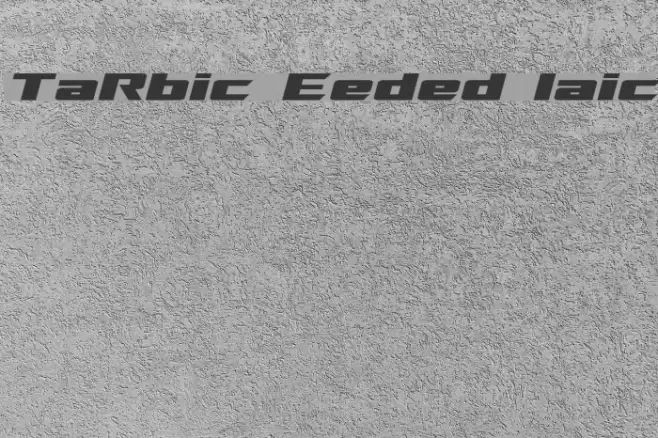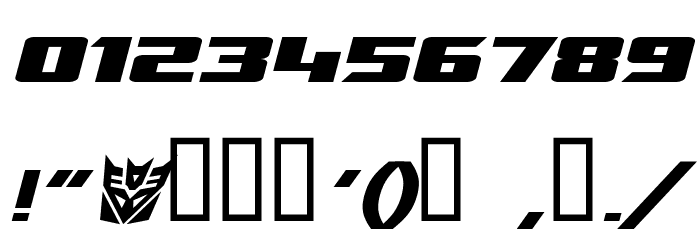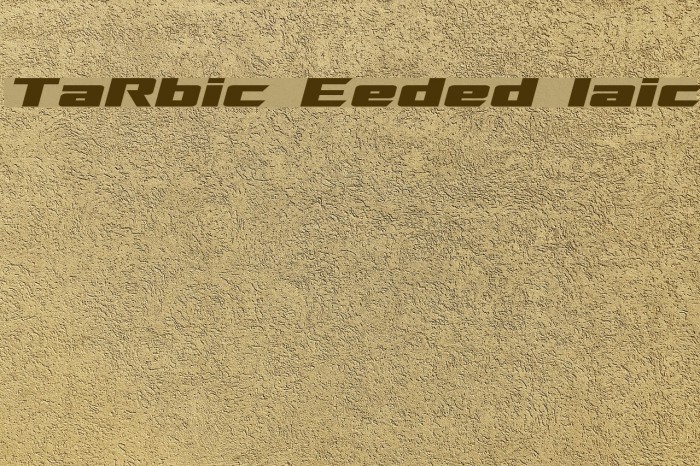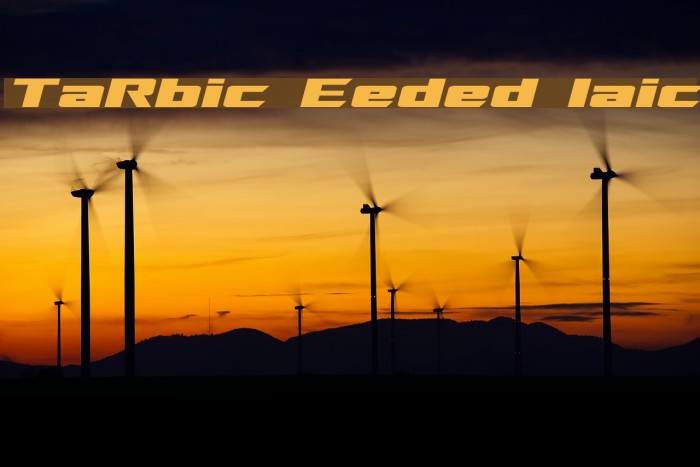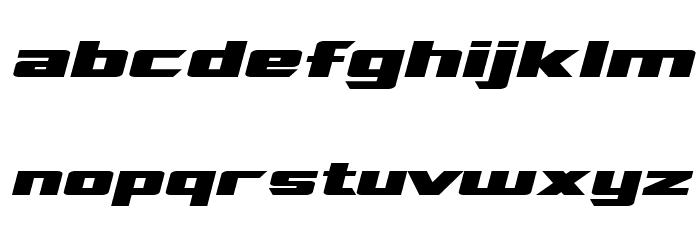
TransRobotics Extended Italic Font
TransRobotics Extended Italic Description
This font features a futuristic and dynamic design with a strong emphasis on angular lines and geometric shapes. The characters are italicized, giving them a sense of motion and speed. The uppercase and lowercase letters maintain a consistent style, with sharp edges and a bold presence. The numbers are equally bold, ensuring visibility and impact. Special characters are uniquely styled, adding to the overall modern and tech-inspired aesthetic. This font is ideal for projects that require a contemporary and edgy look, such as technology branding, video game titles, or sci-fi themed designs.
A bold, italicized font with a futuristic and angular design from Futuristic fonts.
- Width: Expanded